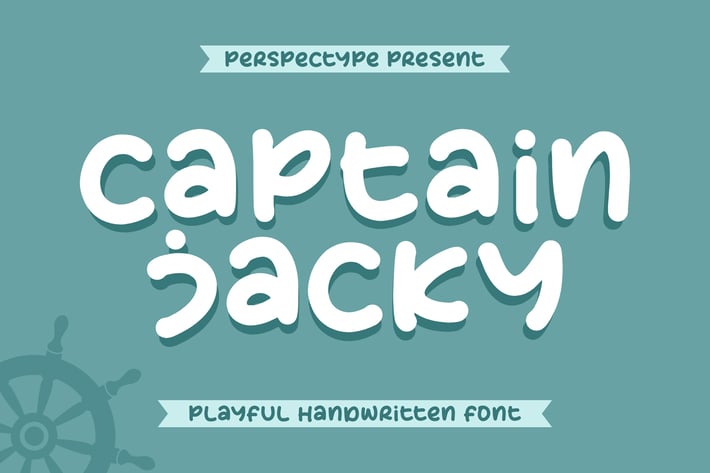
Captain Jacky Playful Handwritten Font
Captain Jacky is a playful handwritten font with a bubbly, friendly, and cheerful personality. Featuring rounded strokes, soft curves, and a lively handmade feel, this typeface brings warmth and positivity to any design project. Its joyful character makes it perfect for fun branding, kids-themed visuals, and creative digital content that needs an approachable and expressive touch.
Playful handwritten display style
Rounded, soft, and friendly letterforms
Natural handwritten flow with charming irregularities
Kids’ books & playful branding
Posters, greeting cards, and fun promotional materials
Social media posts & quote designs
Product packaging
Craft projects & DIY visuals
Logos with a cheerful, handmade vibe
Cute, fun, and full of personality — Captain Jacky brings a bright, playful touch to every creative project.